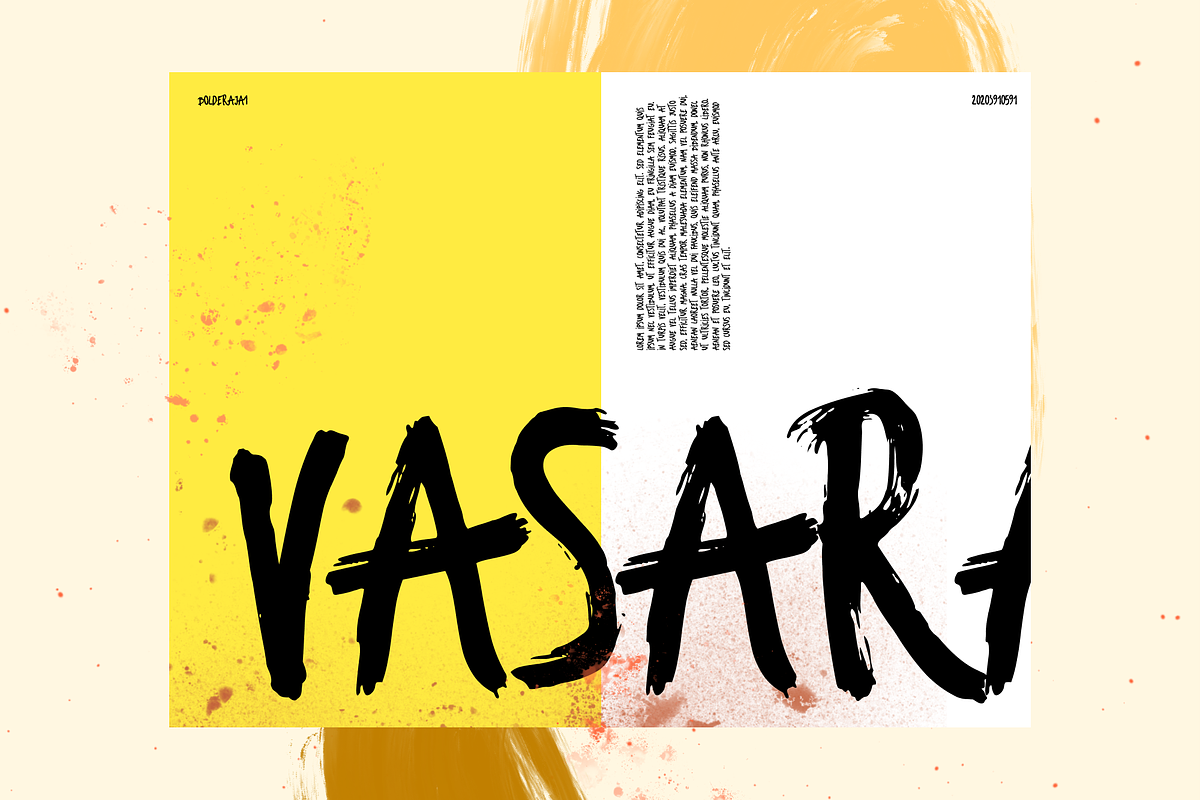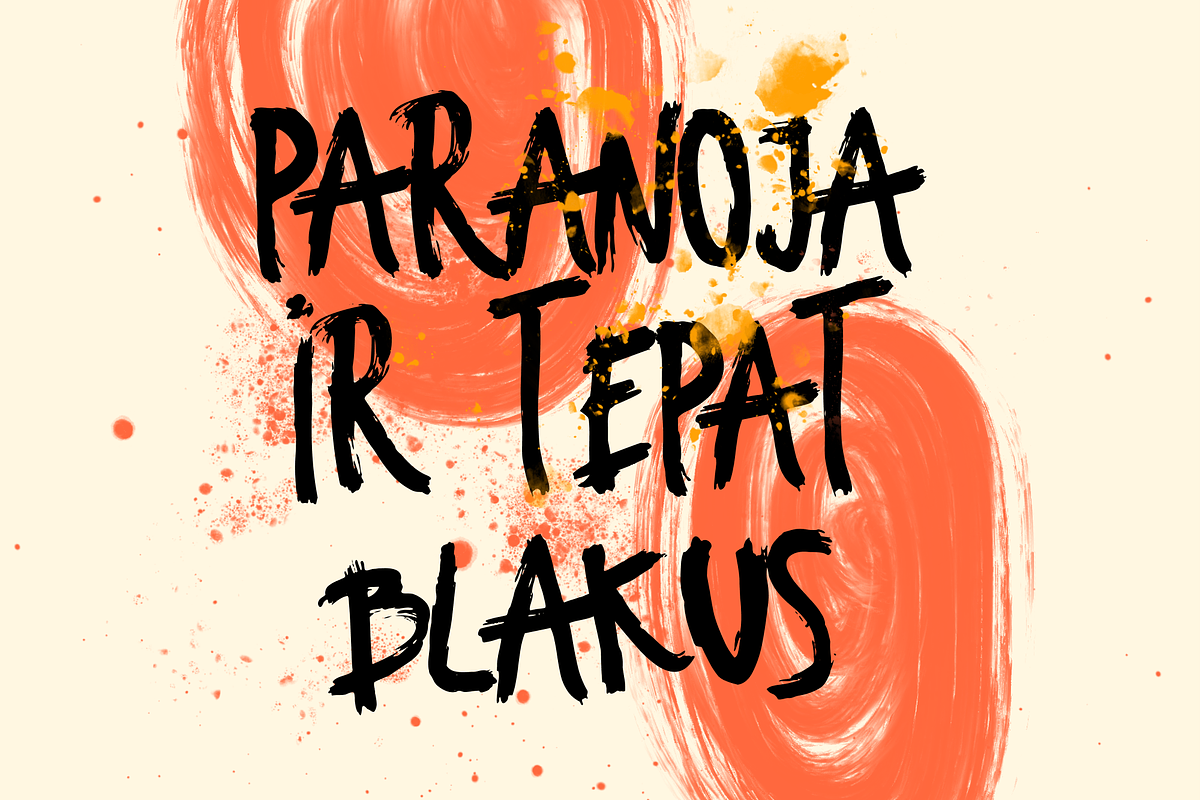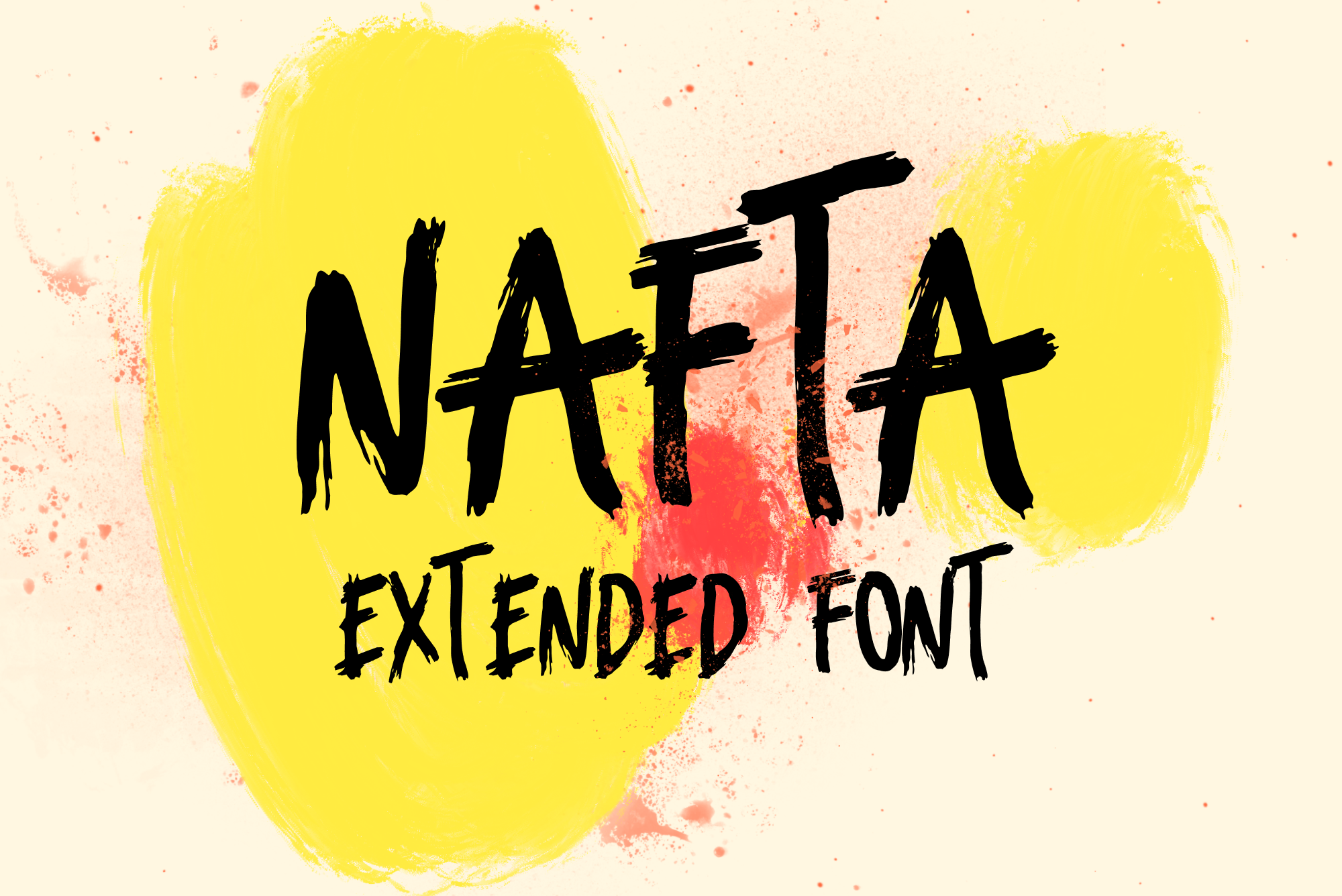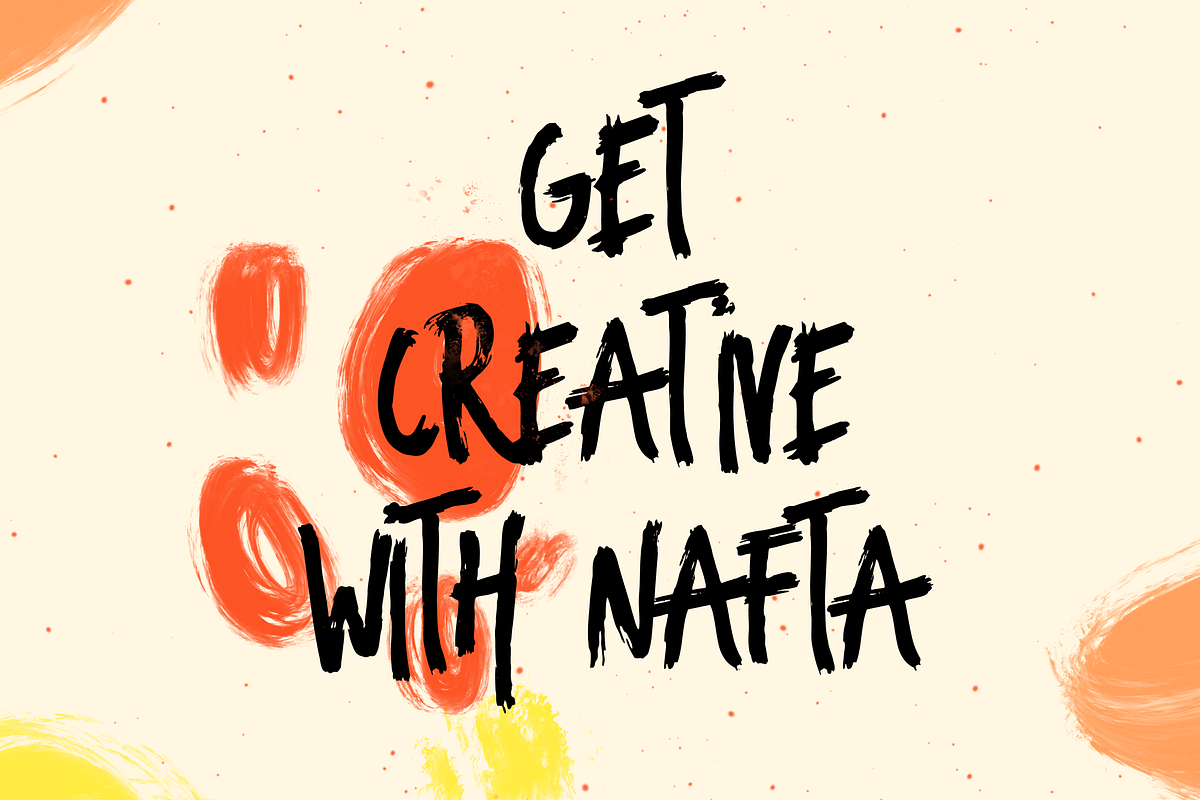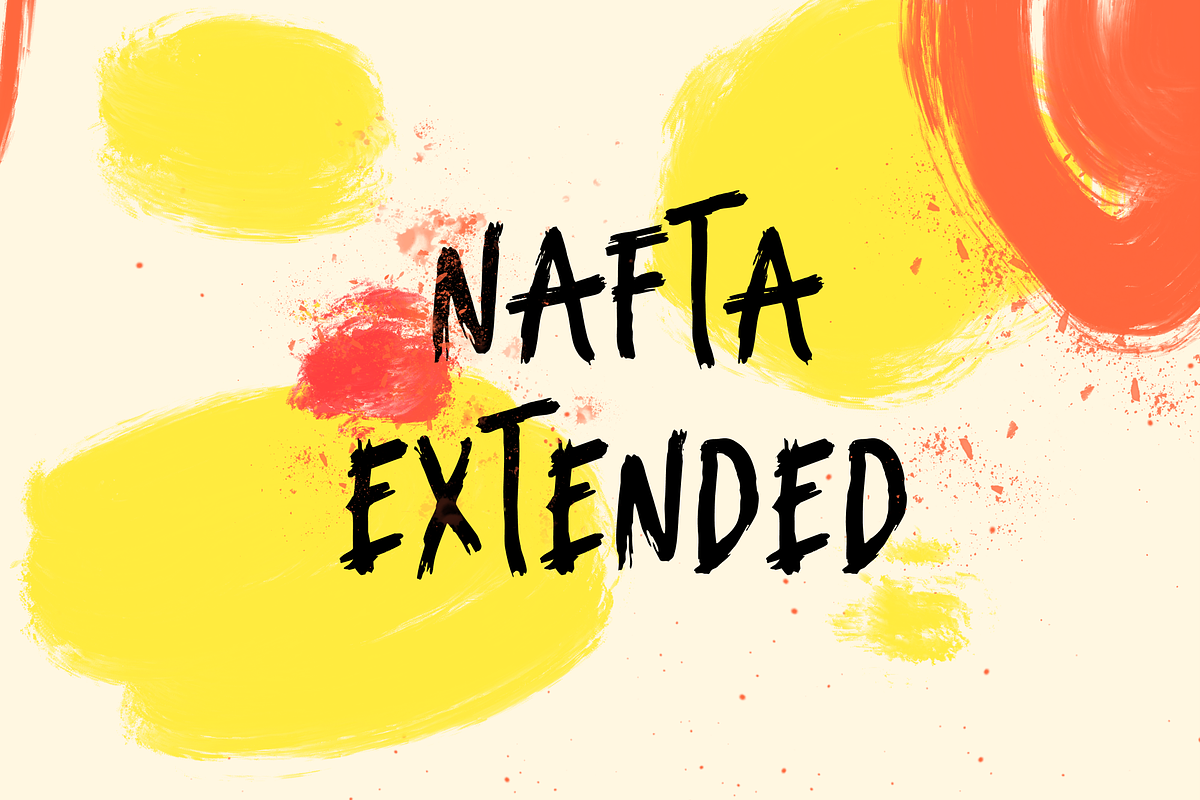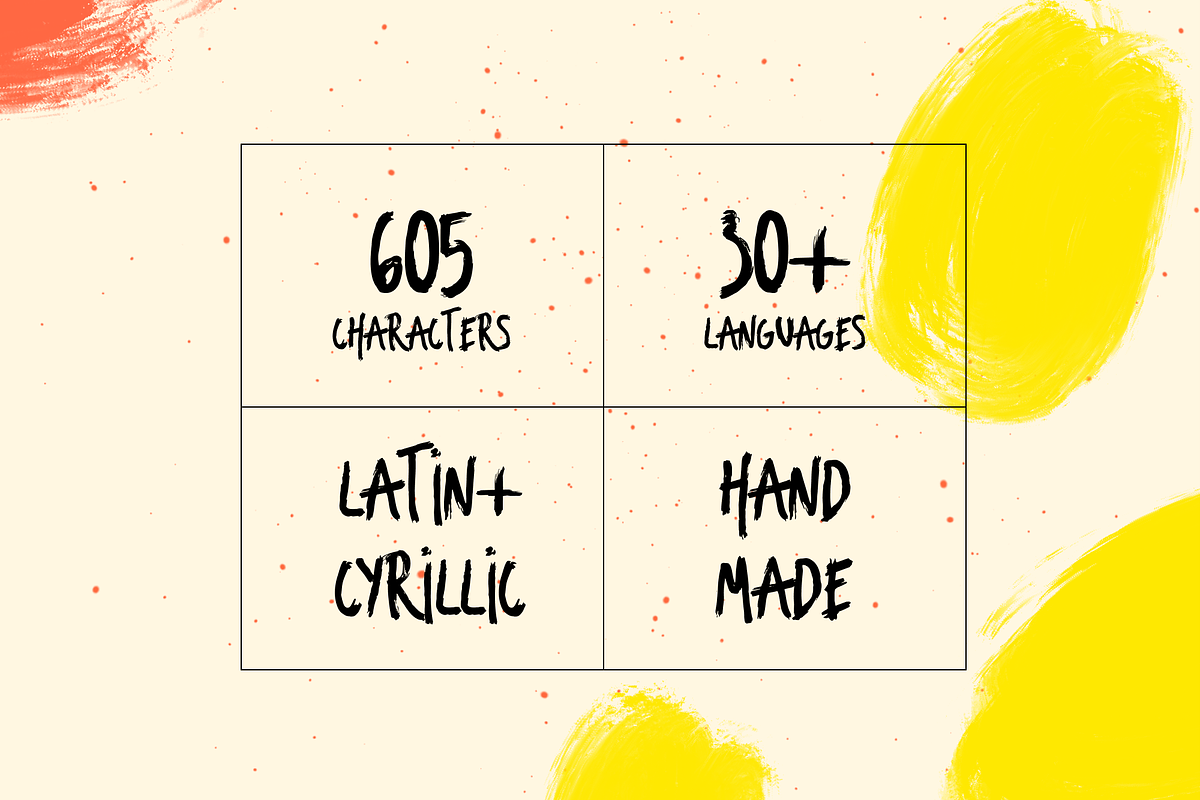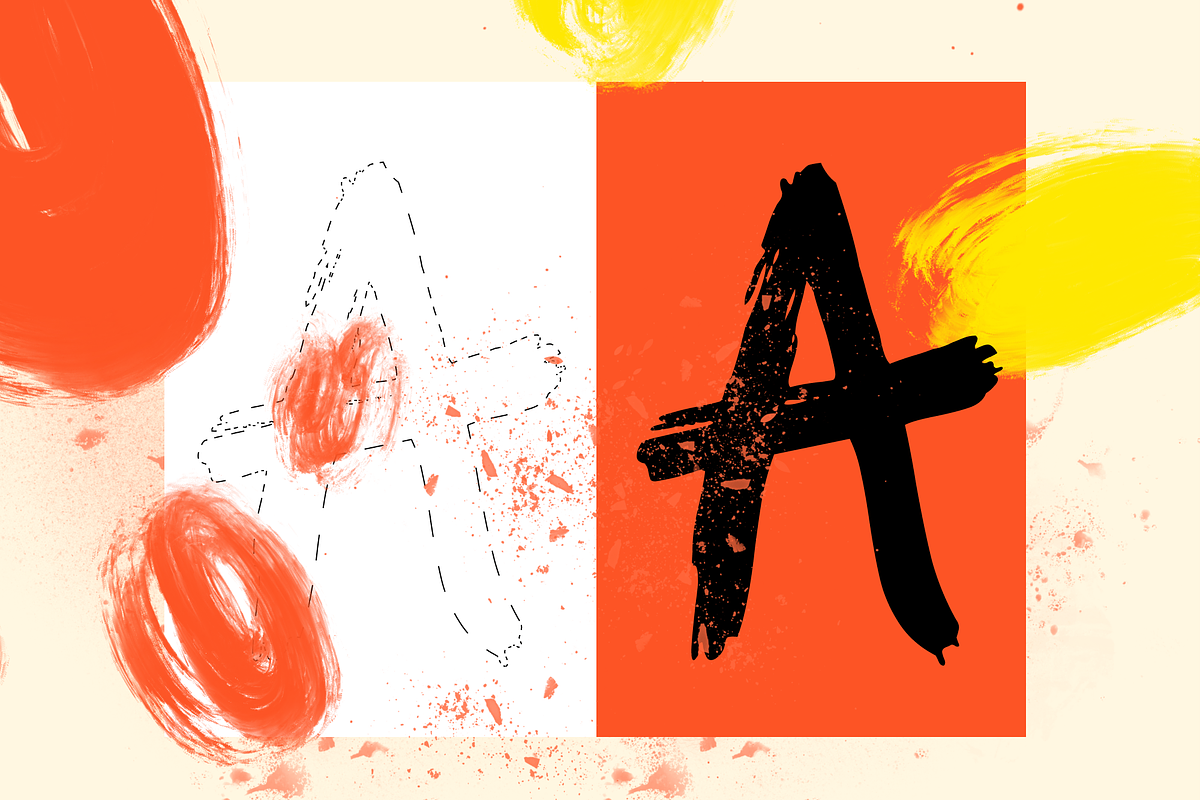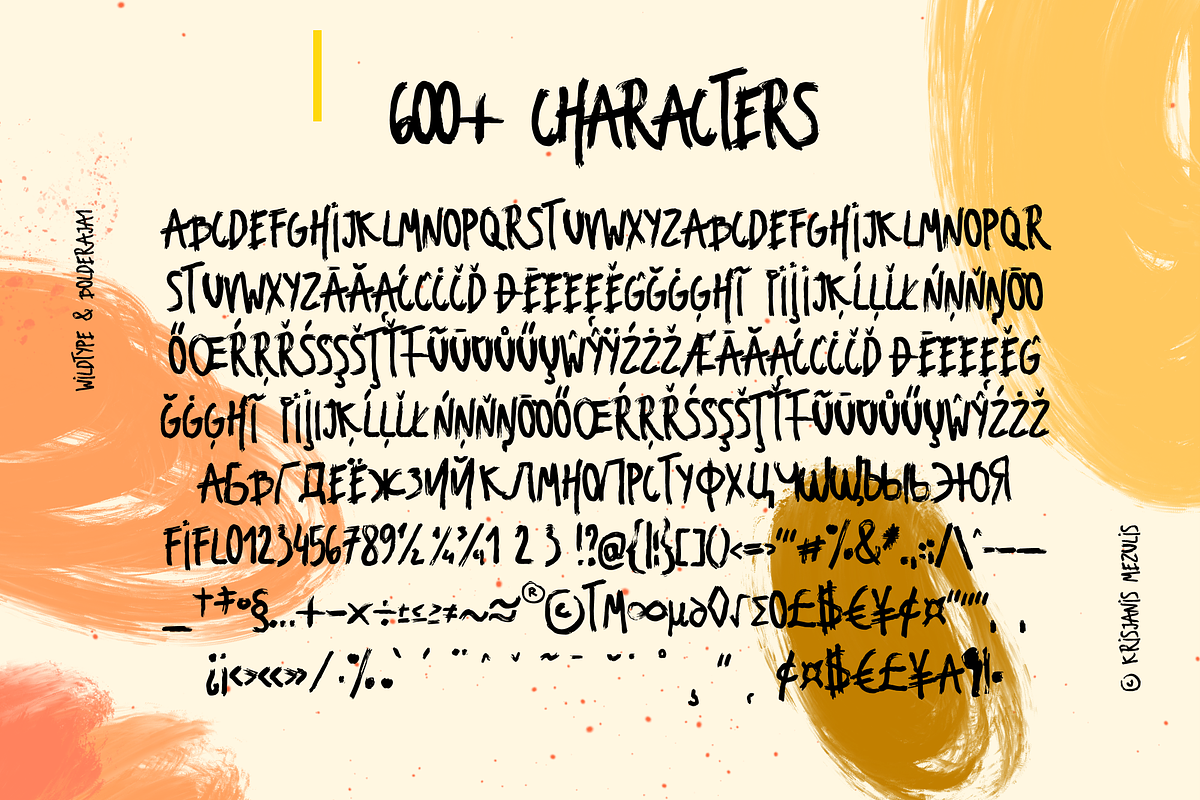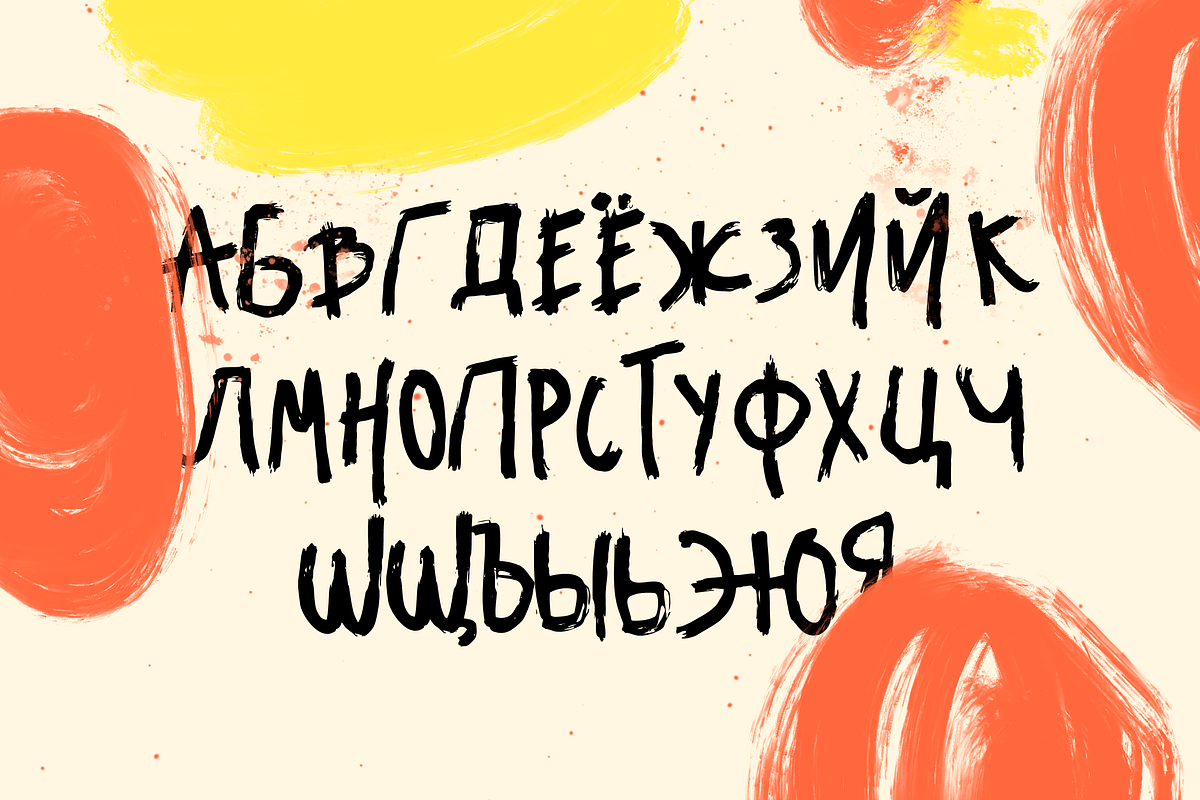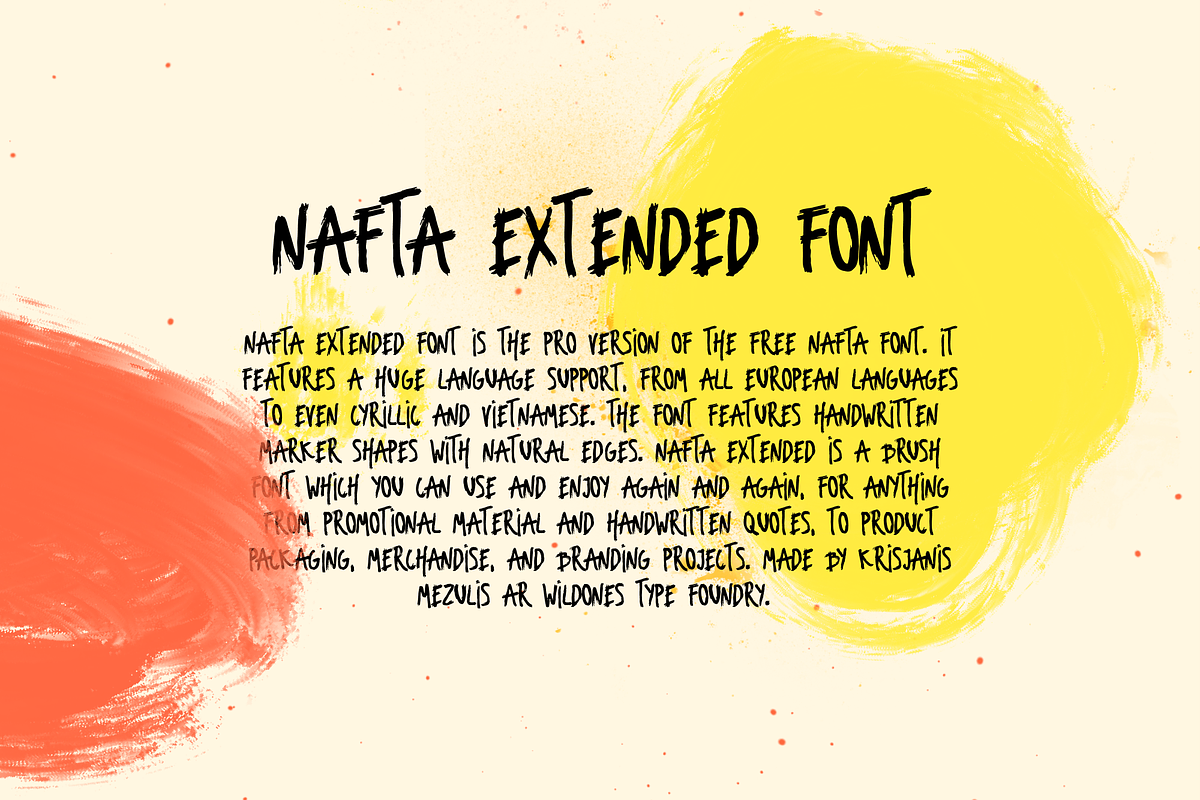
Nafta Extended Marker Font
Nafta Extended Font is the Pro version of the free Nafta Font. It features a huge language support, from all European languages to even Cyrillic and Vietnamese. The Font features handwritten marker shapes with natural edges. Nafta Extended is a brush font which you can use and enjoy again and again, for anything from promotional material and handwritten quotes, to product packaging, merchandise, and branding projects. Made by Krisjanis Mezulis ar Wildones Type Foundry.